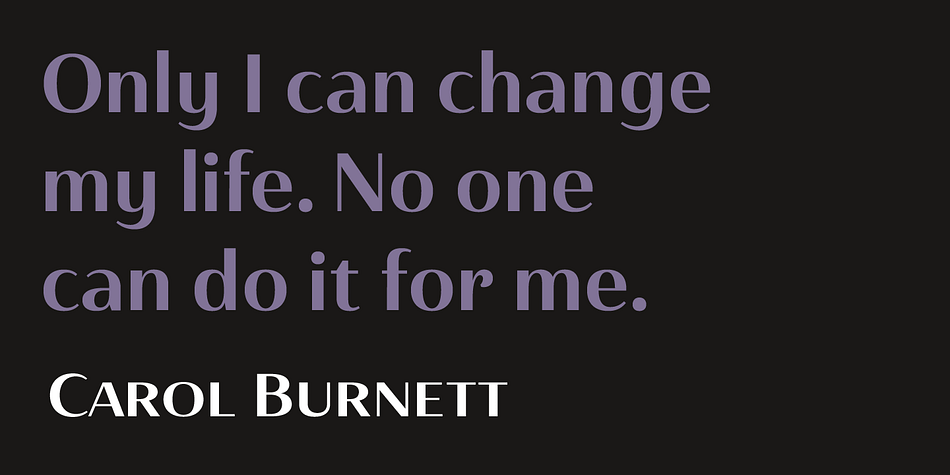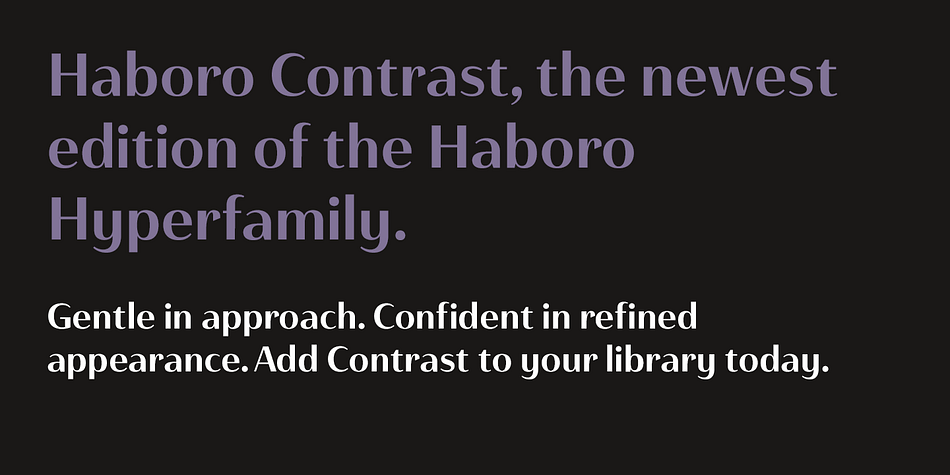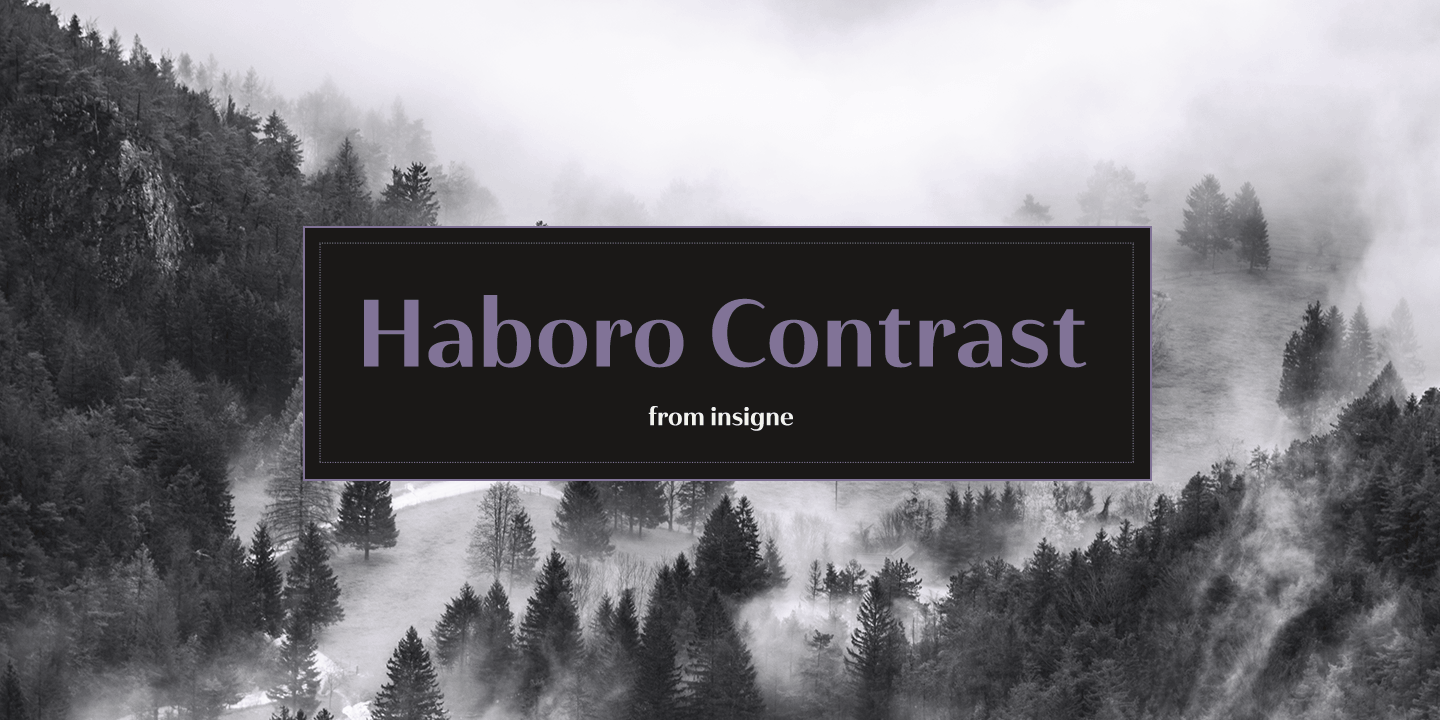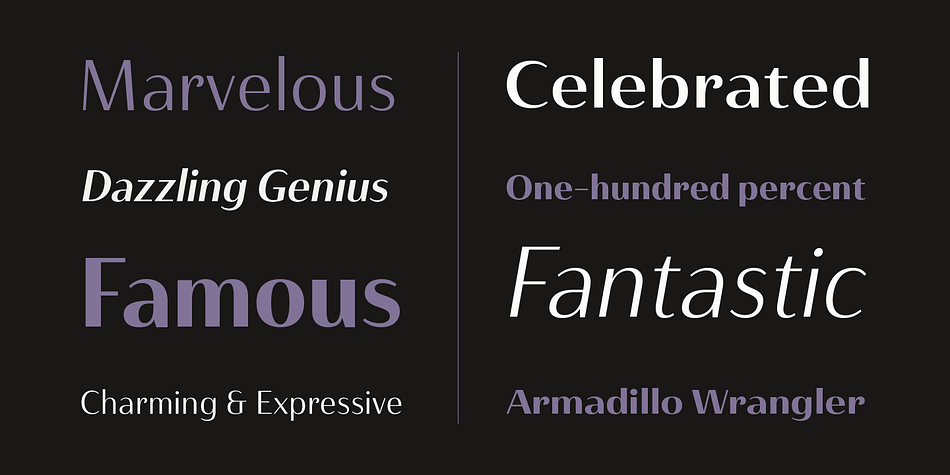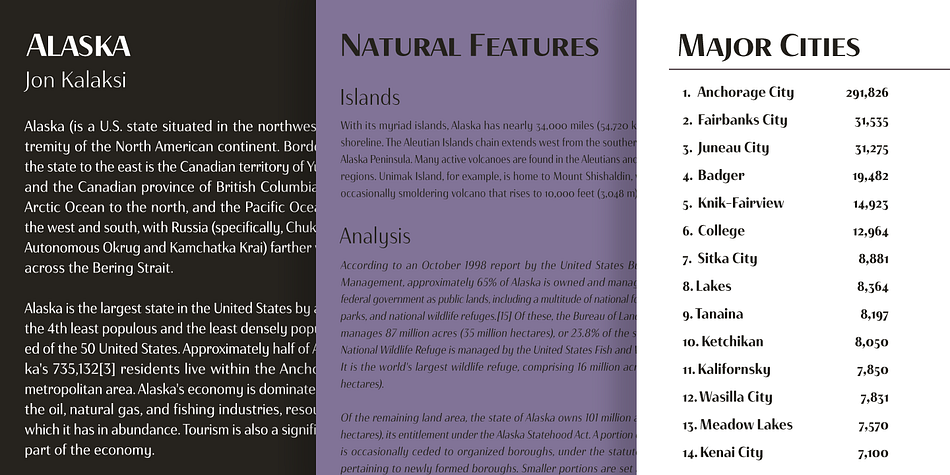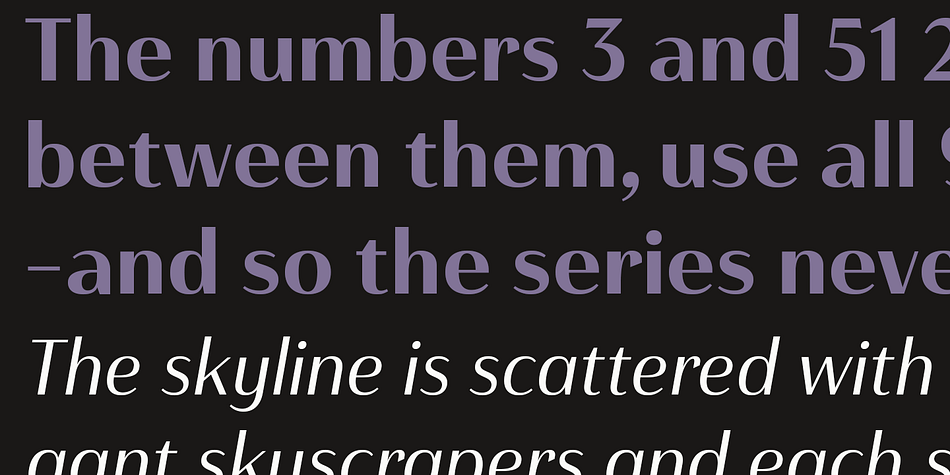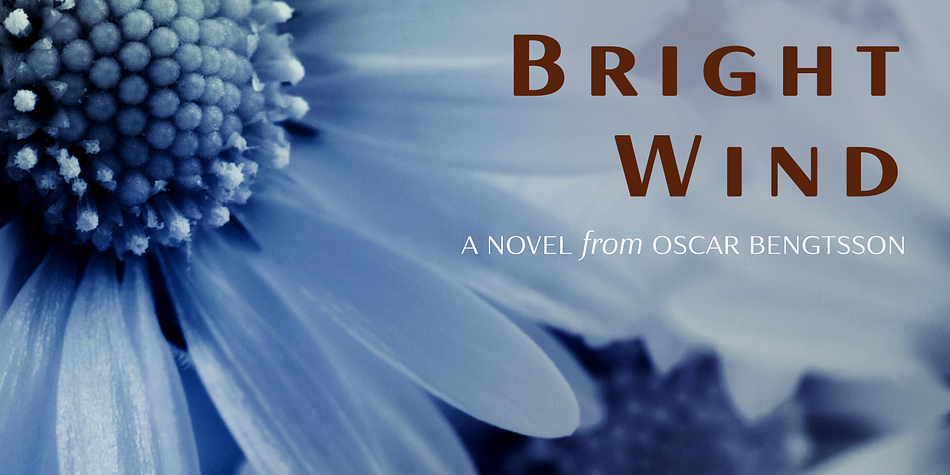
Haboro Contrast is a sans serif font family. This typeface has fifty-four styles and was published by Insigne Design.
Meet Haboro Contrast, the stylish little sister of the Haboro hyperfamily. While built from the same clean, geometric shapes of Haboro Sans, this new addition has been rebalanced for elegant performance with her high-contrast sans letterforms and has been adjusted to provide the greatest impact for each weight. It’s a personality all her own, gentle in approach yet refined and modern with a confident appearance.
Capitalize on Contrast’s style with OpenType features, too. Packed with options like OpenType ligatures, stylistic sets, fractions, crafted small caps and old-fashioned figures, this font will keep your work fresh and attractive. If you need even more combinations for the right statement, use the entire Haboro hyperfamily and create the right balance to capture your reader’s eye.
Haboro Contrast (along with the rest of the Haboro family) has been tested for the web and is ready for use in both print and digital applications. Designed to serve as a display character for such publishing projects as magazines and company brochures, Contrast gives you comfort in having a great amount of versatility in the fonts you rely on. It’s a prime example where high contrast simplicity lends itself to achieve excellent design results.
Designer | Jeremy Dooley |